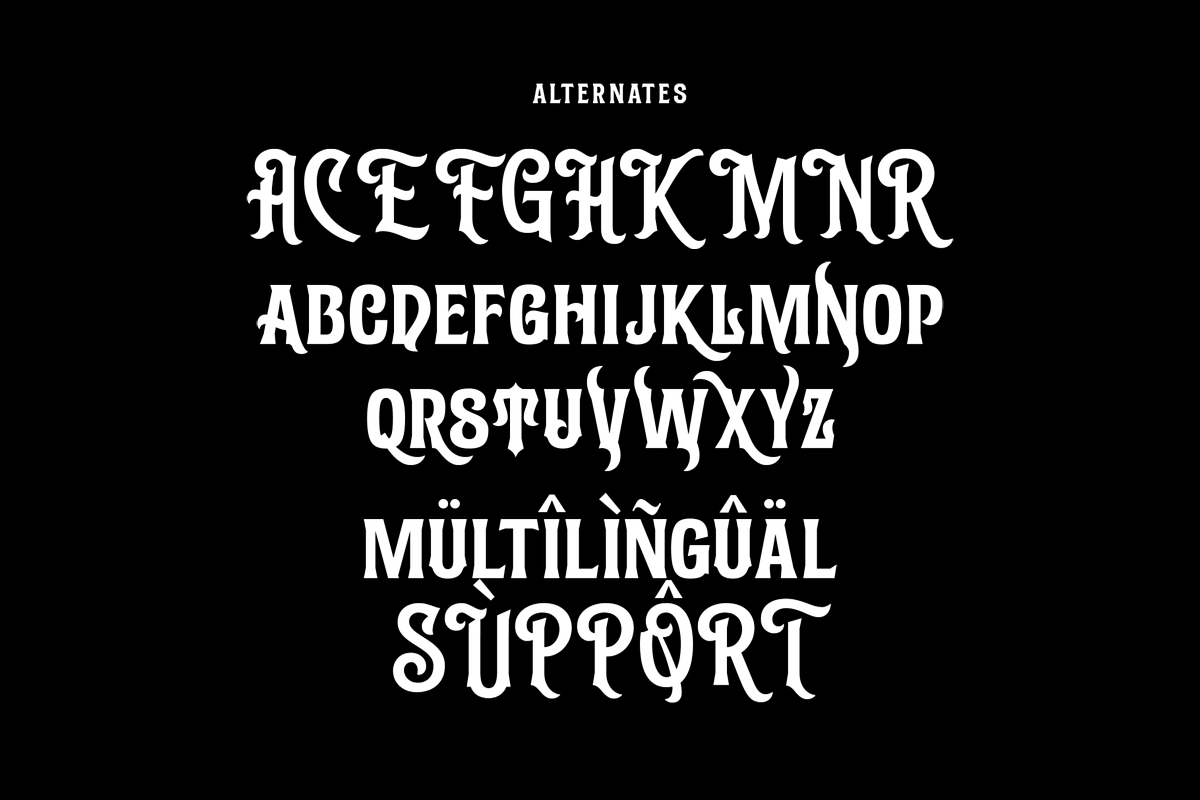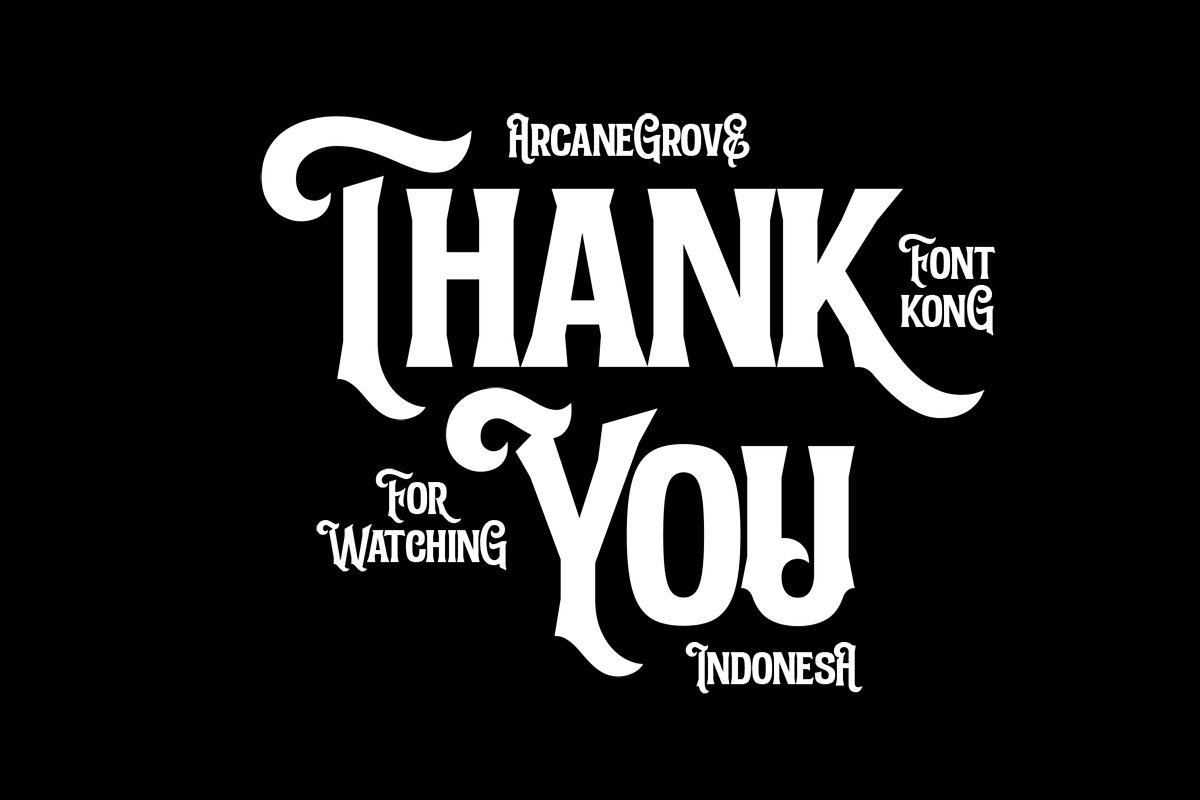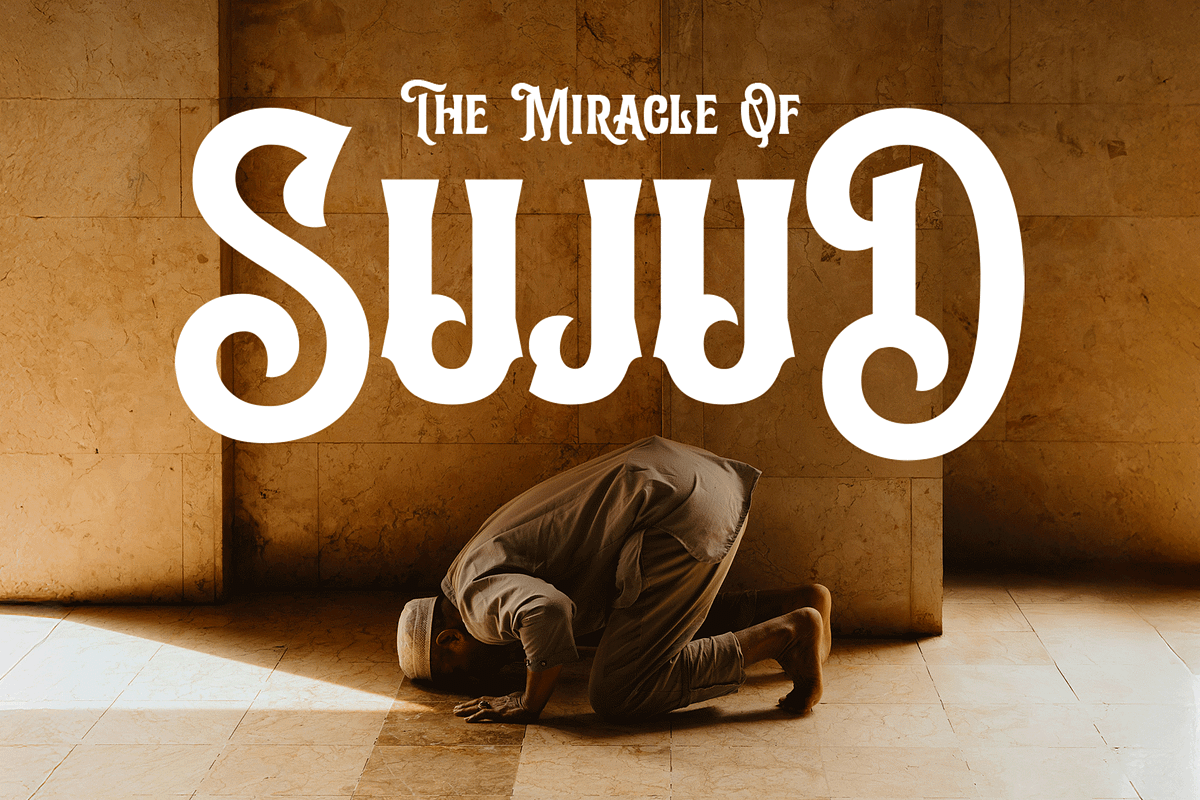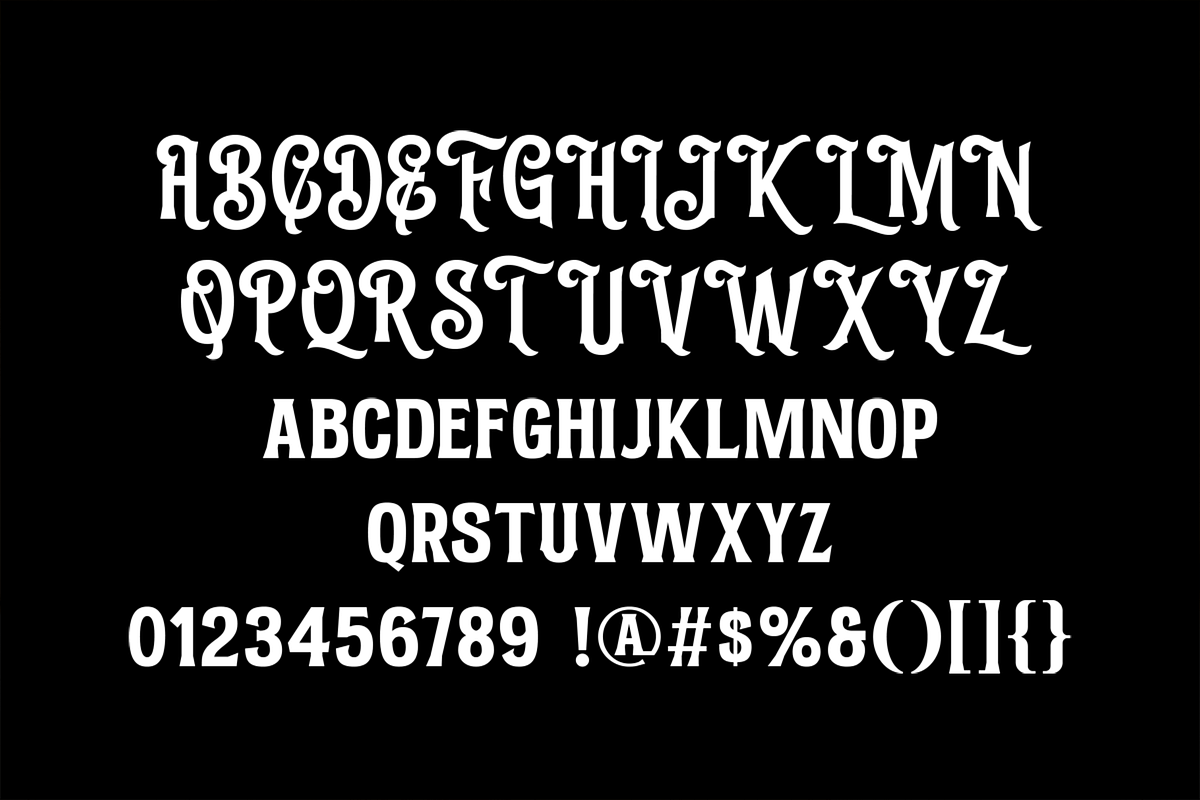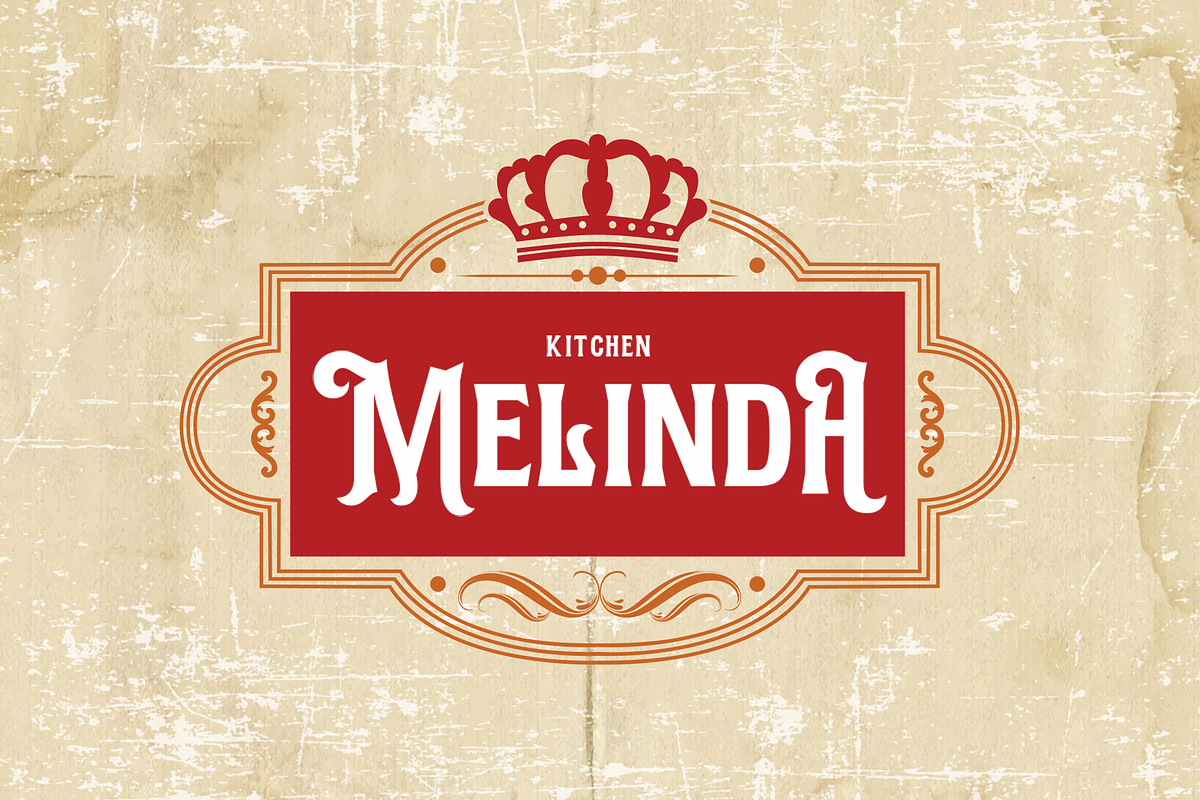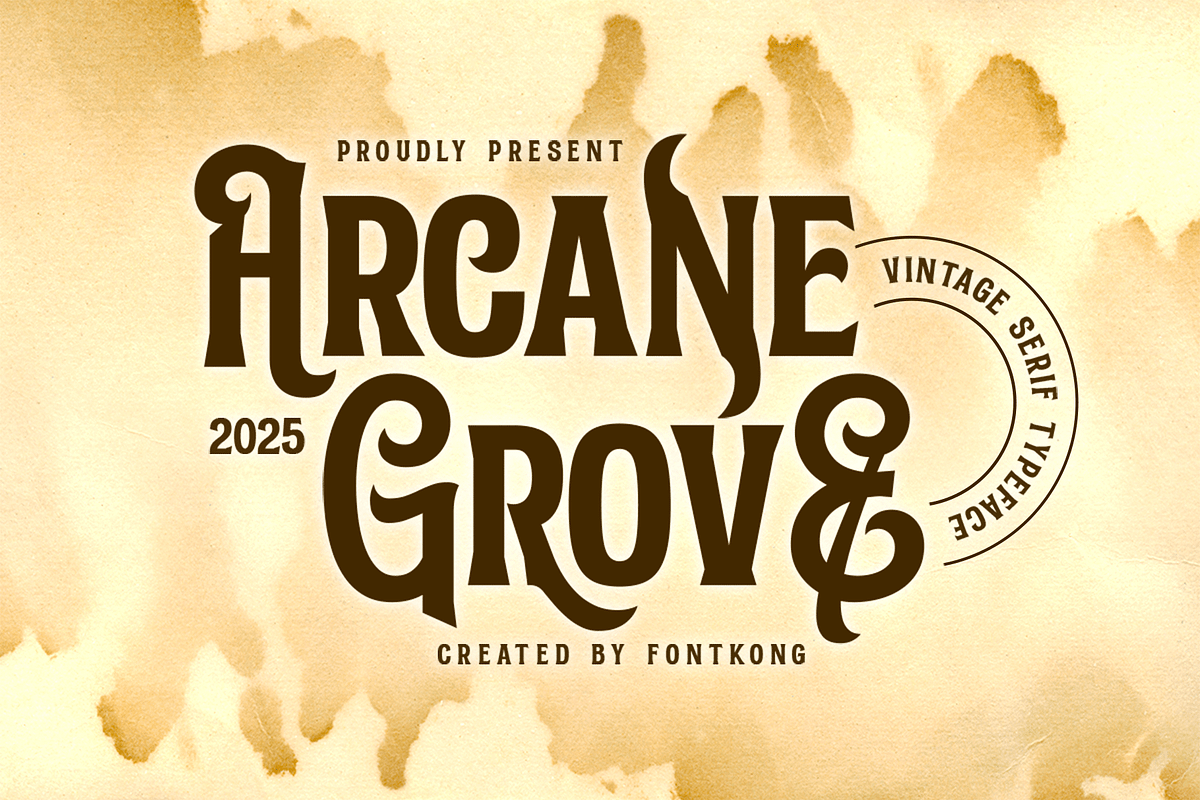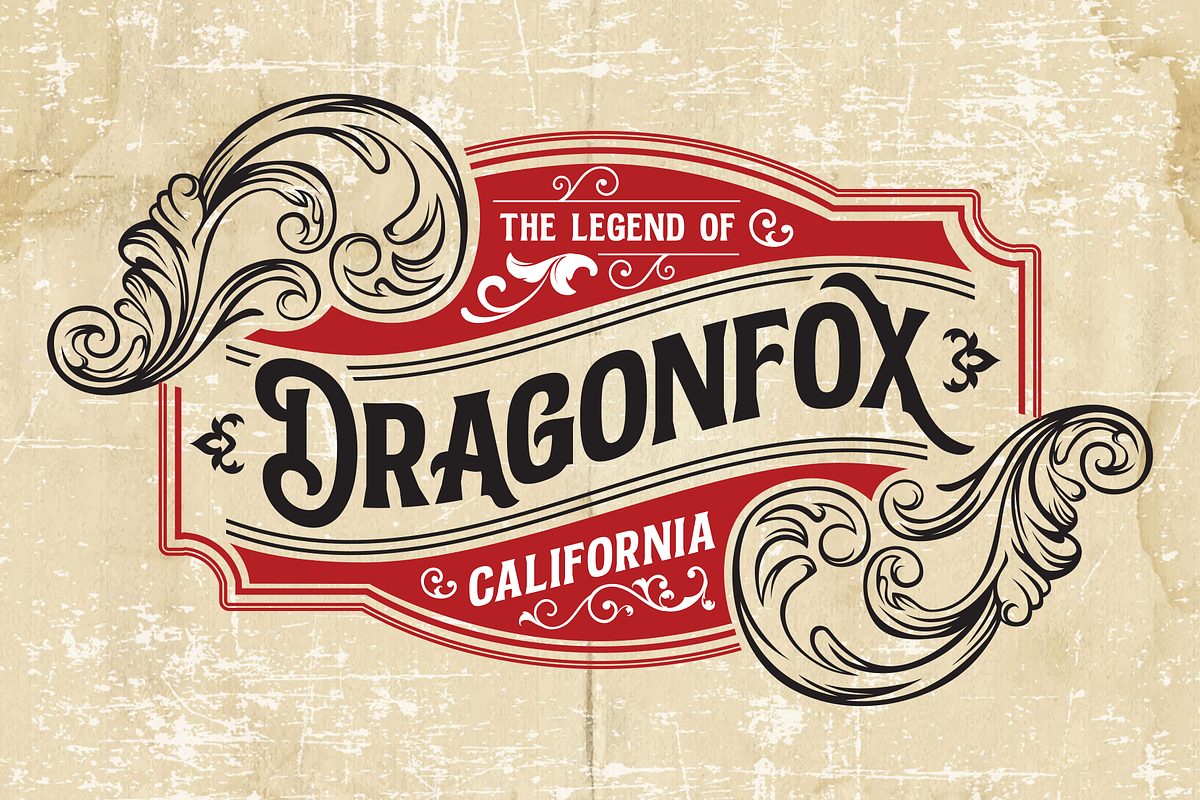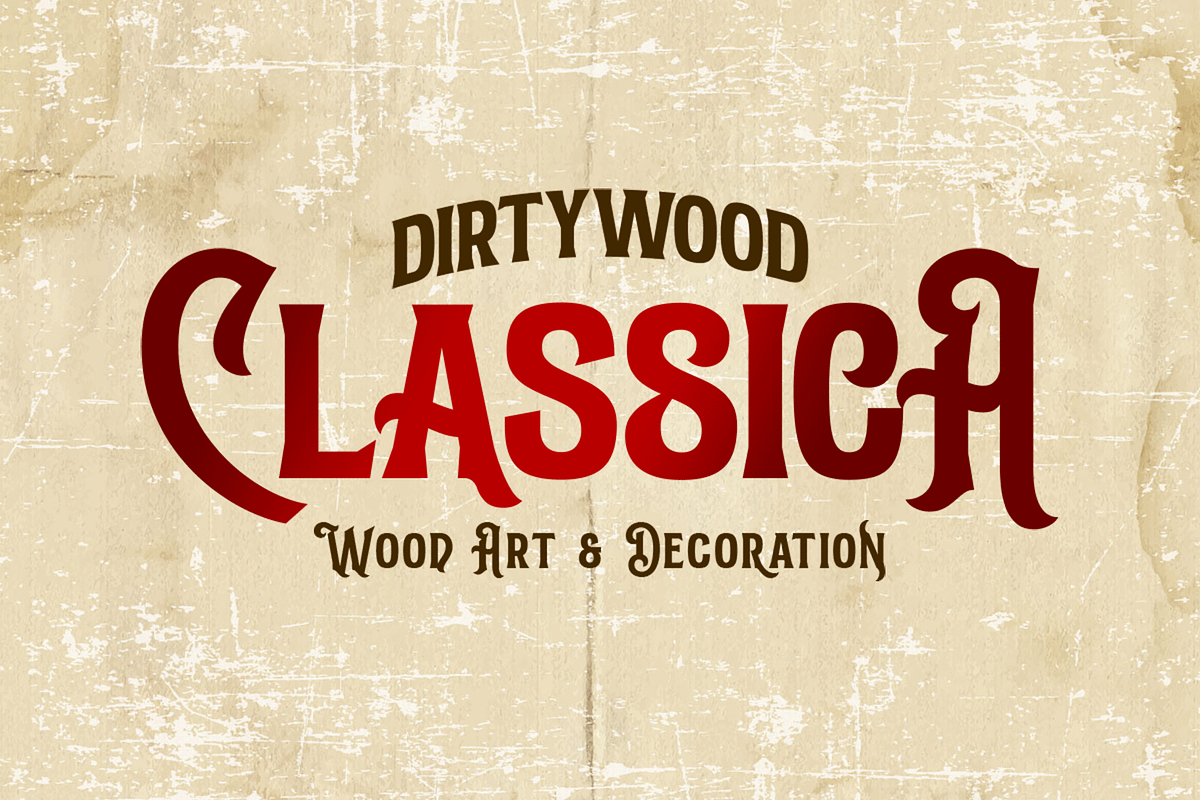
Arcane Grove - Vintage SerifTypeface
Arcane Grove - Vintage Serif Typeface
Introducing Arcane Grove, a vintage serif typeface inspired by classic typography infused with an air of mystery and old-world charm. Featuring sturdy serifs, organic details, and thoughtfully crafted proportions, Arcane Grove delivers a timeless aesthetic that feels both atmospheric and refined.
Arcane Grove includes uppercase and lowercase letters, numerals, punctuation, and multilingual support, ensuring versatility for professional and creative use. Whether you're designing a classic novel cover, a vintage brand identity, or an artisanal product label, this typeface adds richness and authenticity to your typography.
Step into a world of timeless mystique Arcane Grove is the serif typeface that grounds your design in history while enchanting the modern eye.